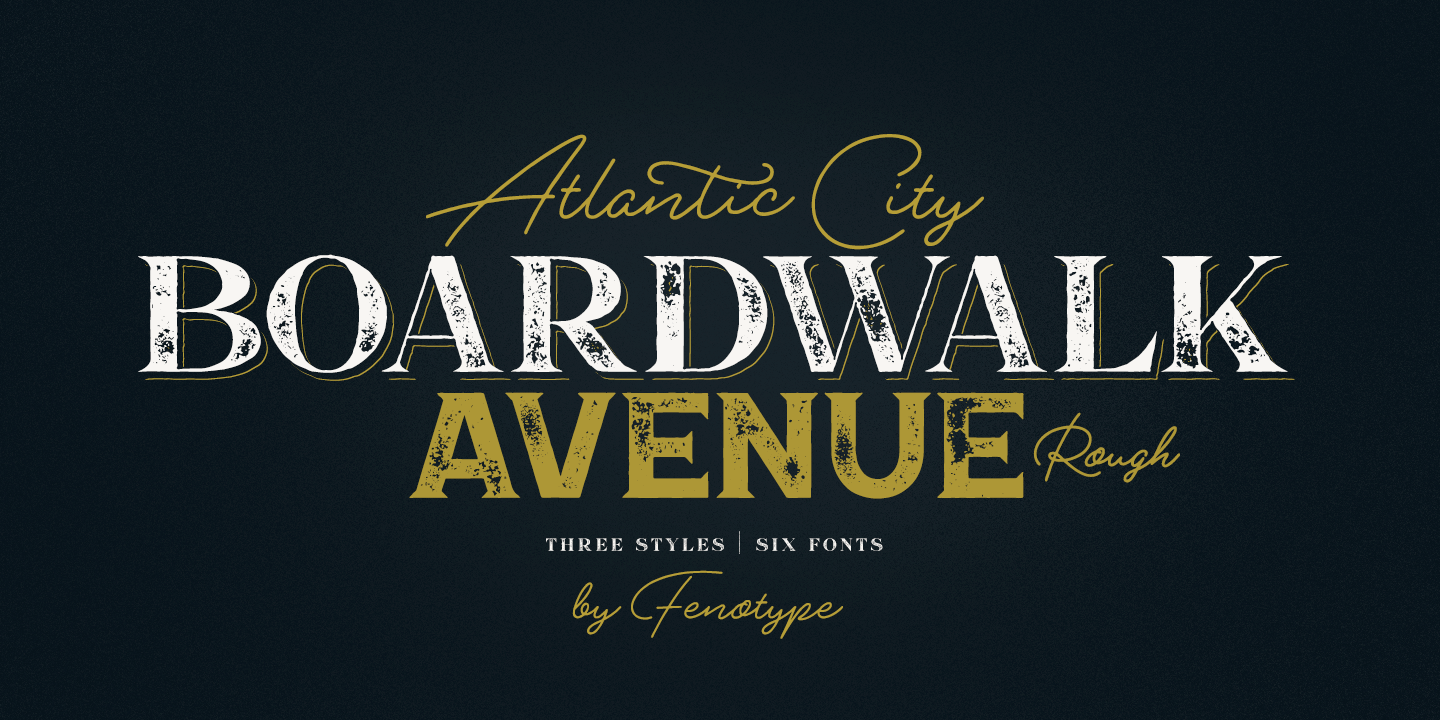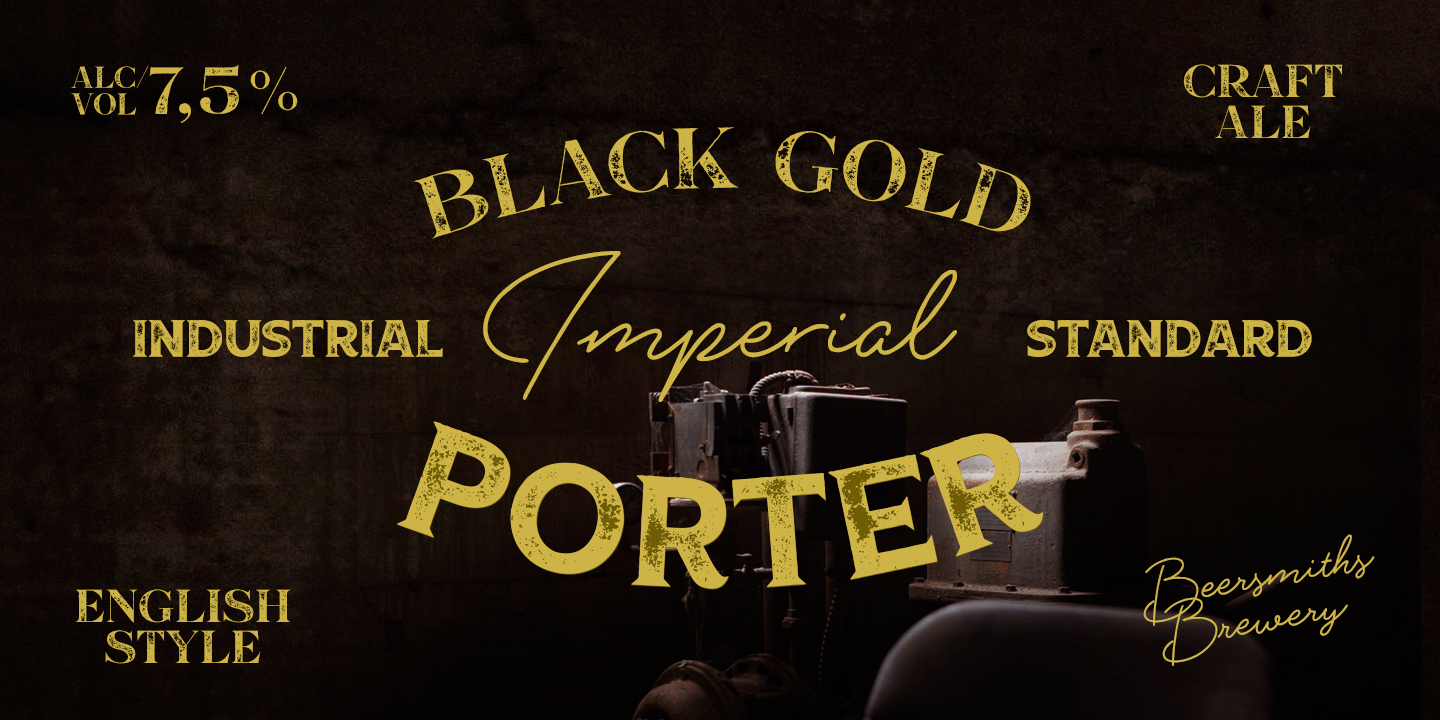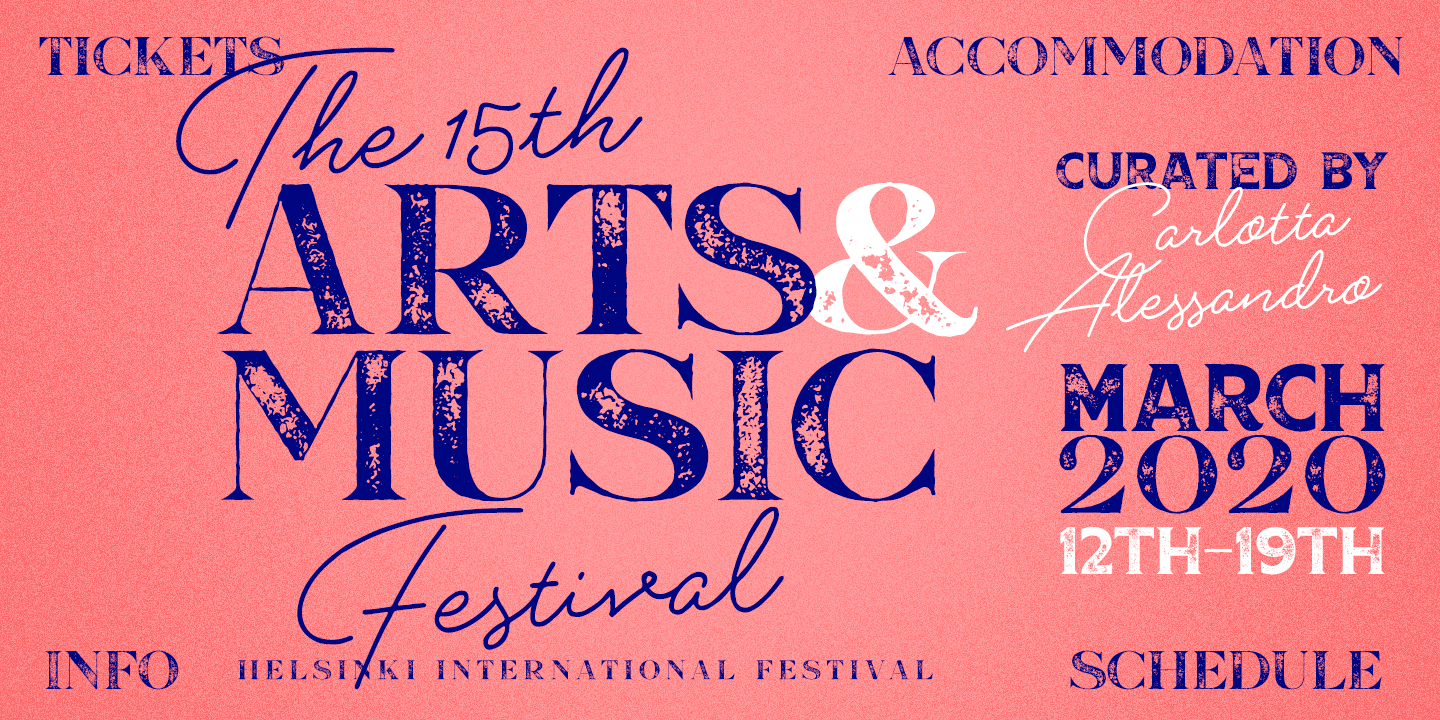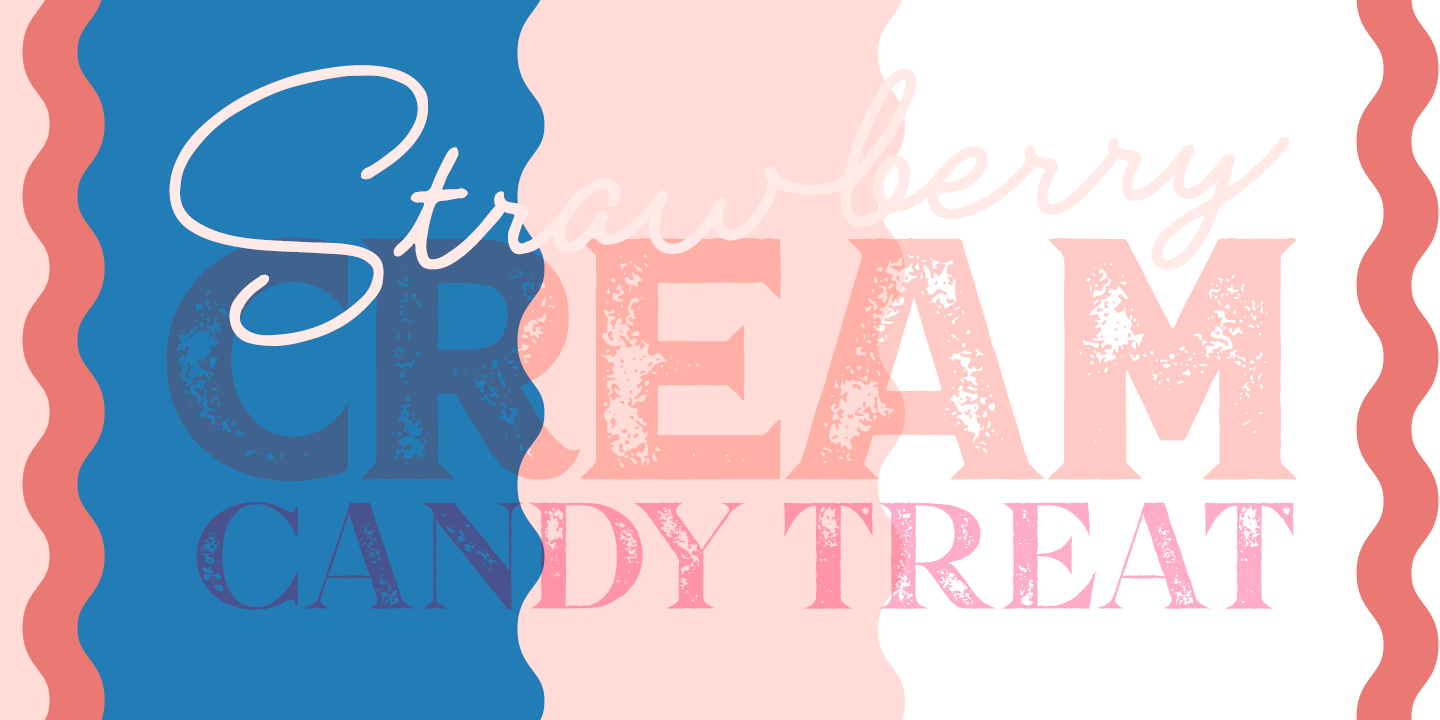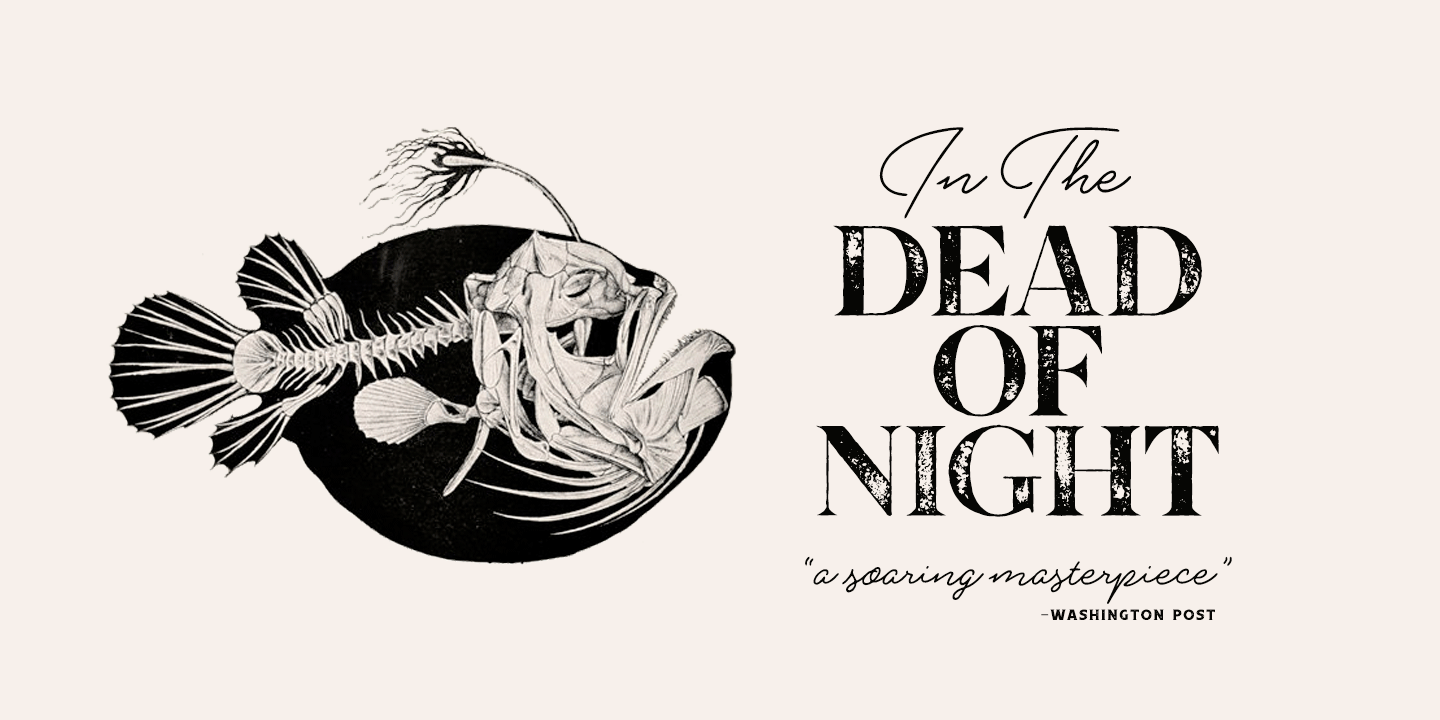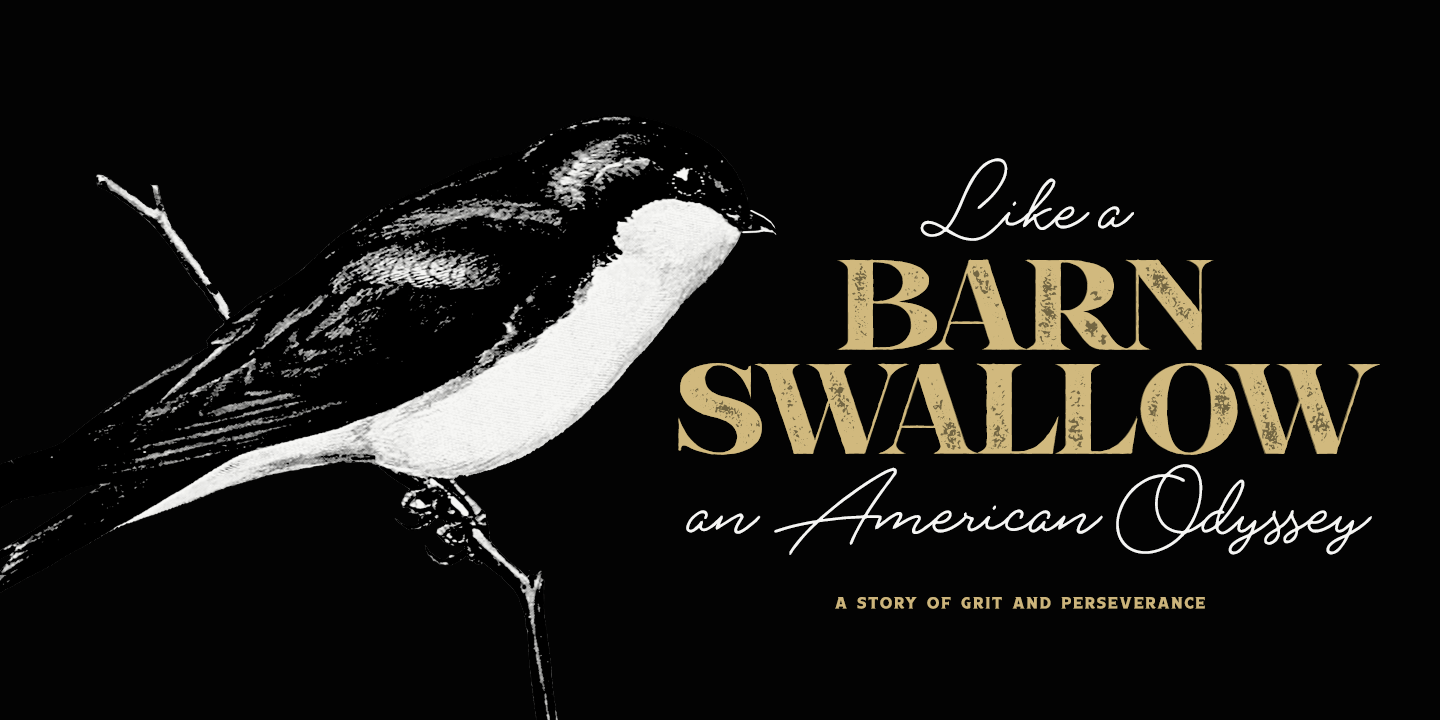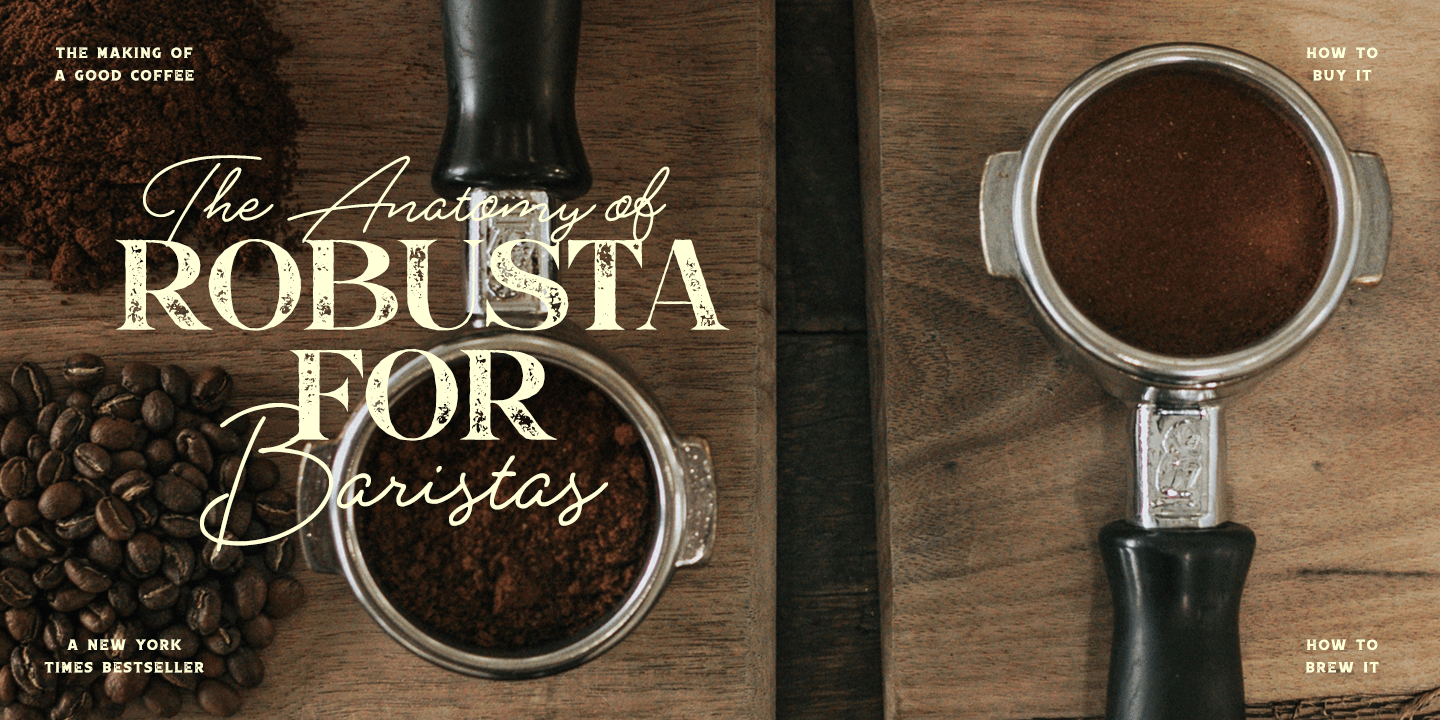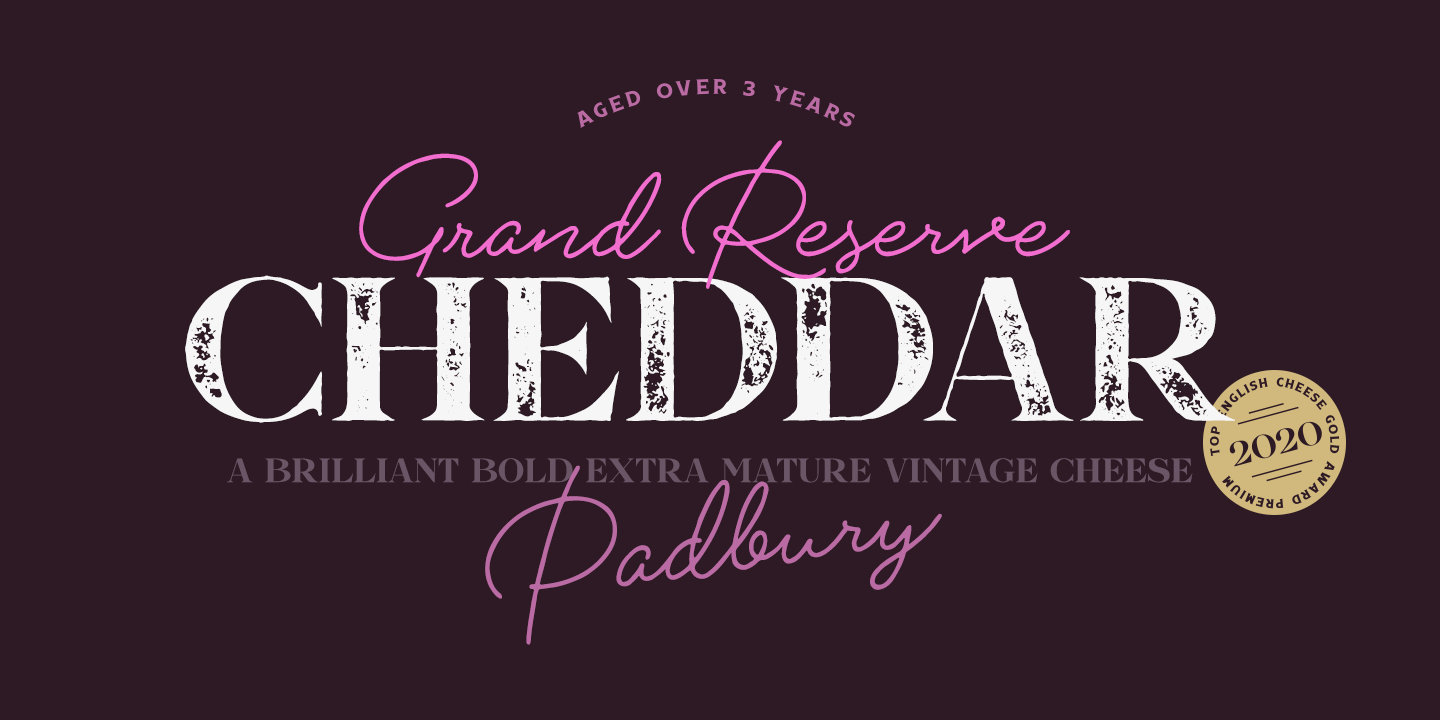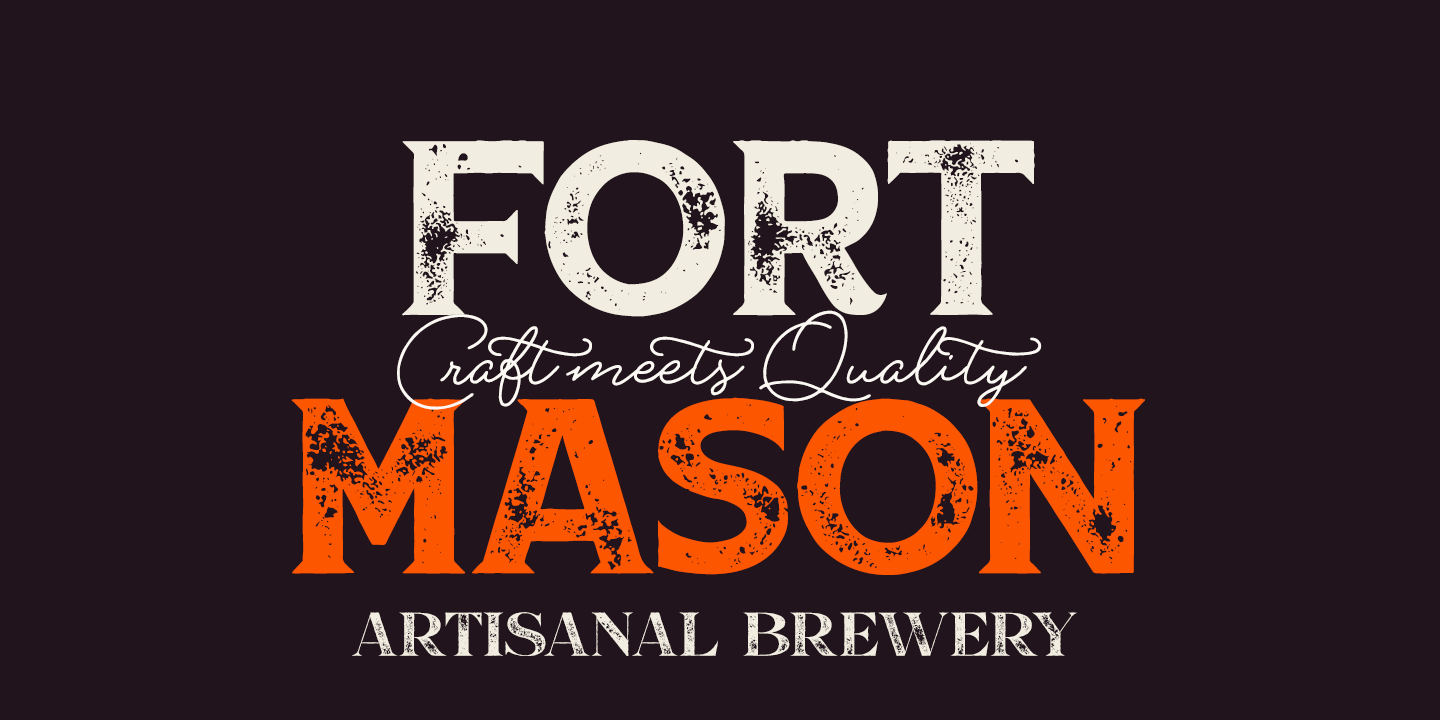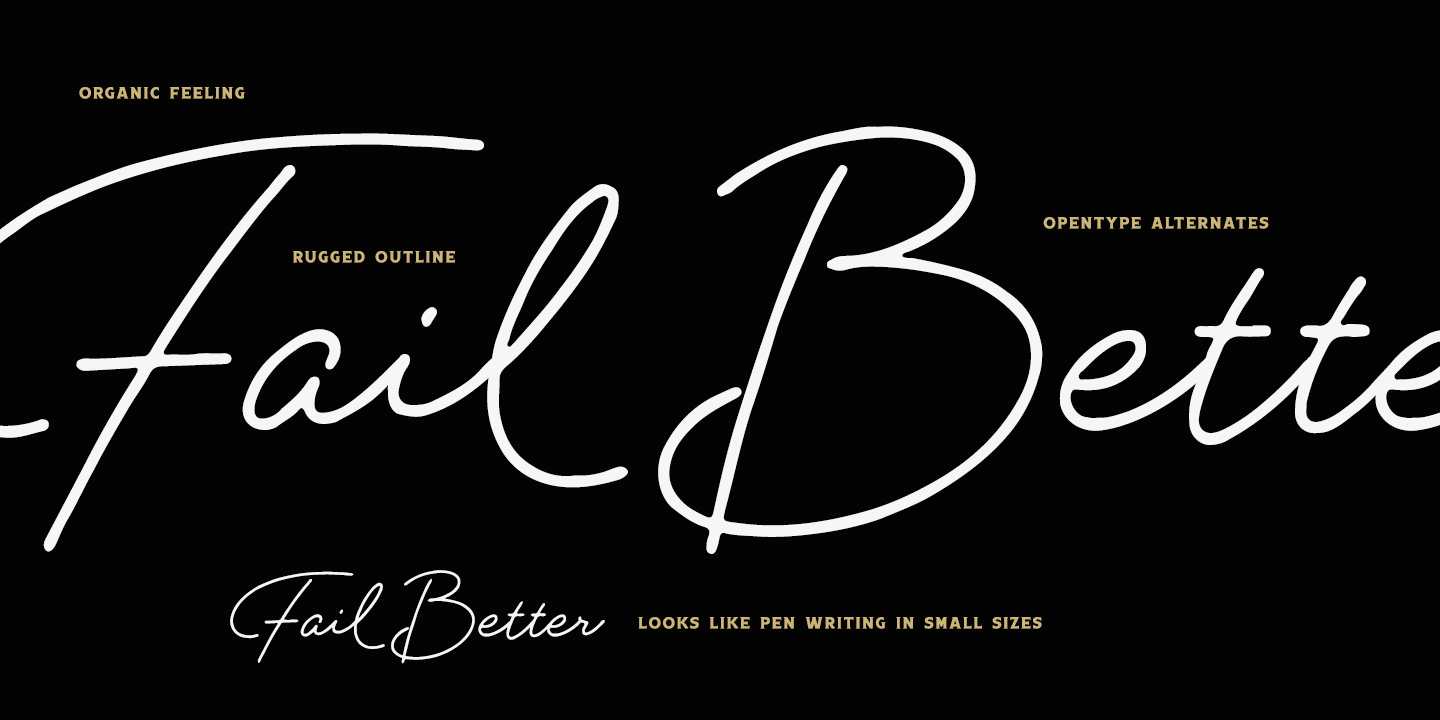
Boardwalk Avenue Rough
Font Family by Fenotype
Here's a short introduction on what's included:
Boardwalk Avenue Rough Pen is a connected Script. It's great for headlines, quotes or in packaging. It has a casual hand drawn vibe to it but it's clean and legible. It's equipped with automatic Contextual Alternates that keep the connections smooth and versatile. For instance when you type double letter another of them will automatically change to add variation. Or if you type ?i? for example, as a first letter after space or after capital letter the code will add starting point to the letter to keep the letterforms more balanced. If you need more ambitious letterforms you can try Swash or Titling Alternates -there's alternates for every standard letter and seek for even more alternates from the glyph palette.
Boardwalk Avenue Rough Antiqua is a high contrast serif with strong character. It's great for glamorous headlines or as a logotype.
Boardwalk Avenue Rough Serif is a low contrast serif with bulky character. It's great for strong and sturdy headlines or as a logotype.